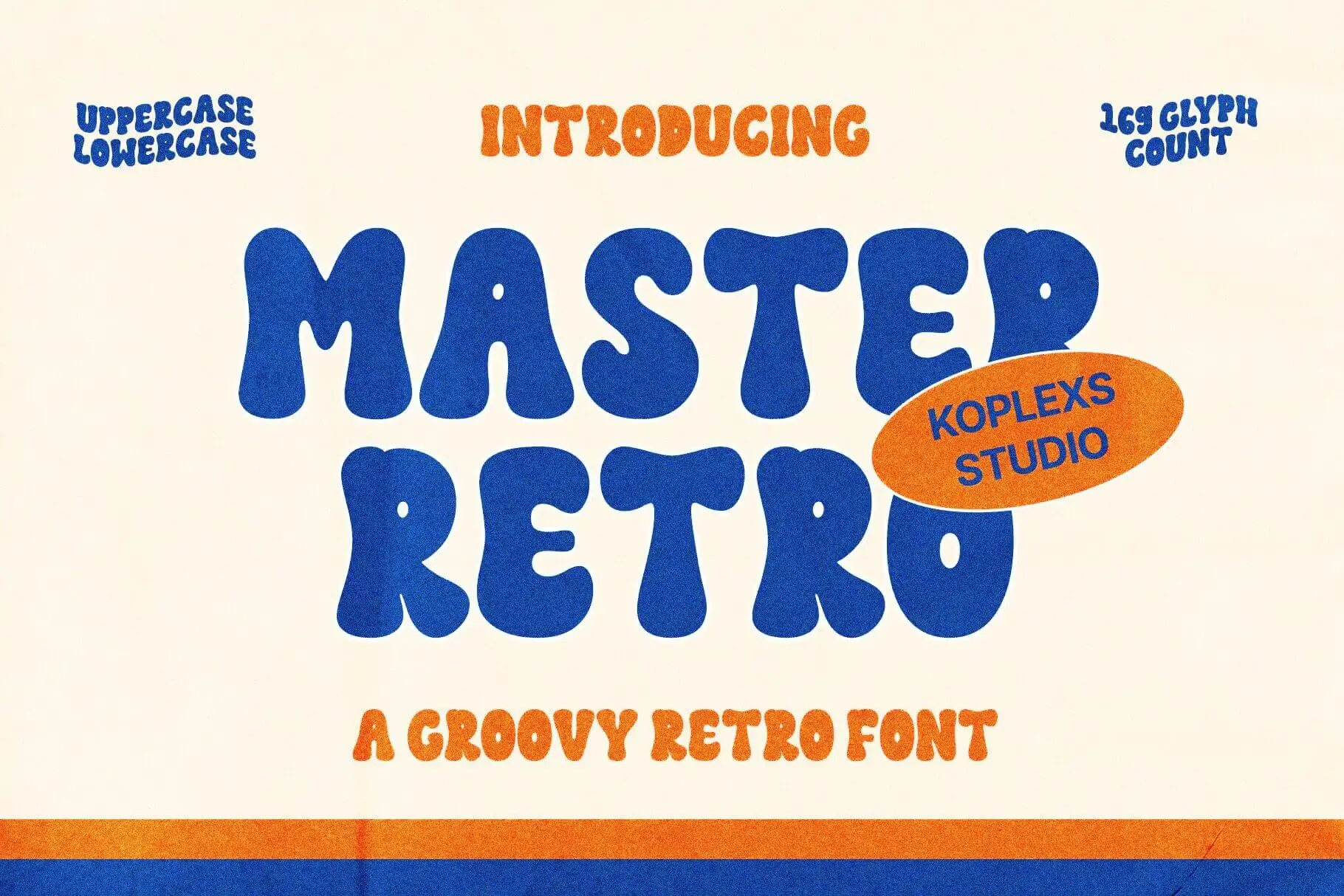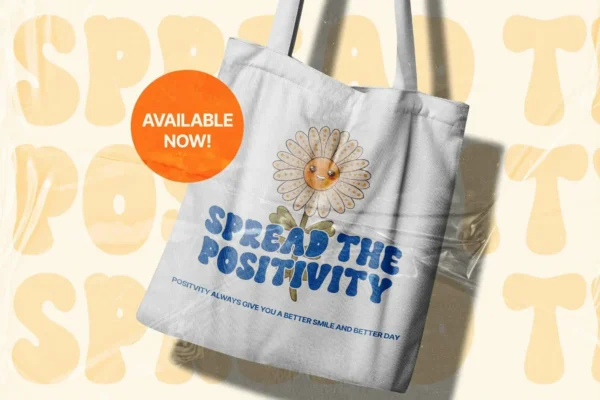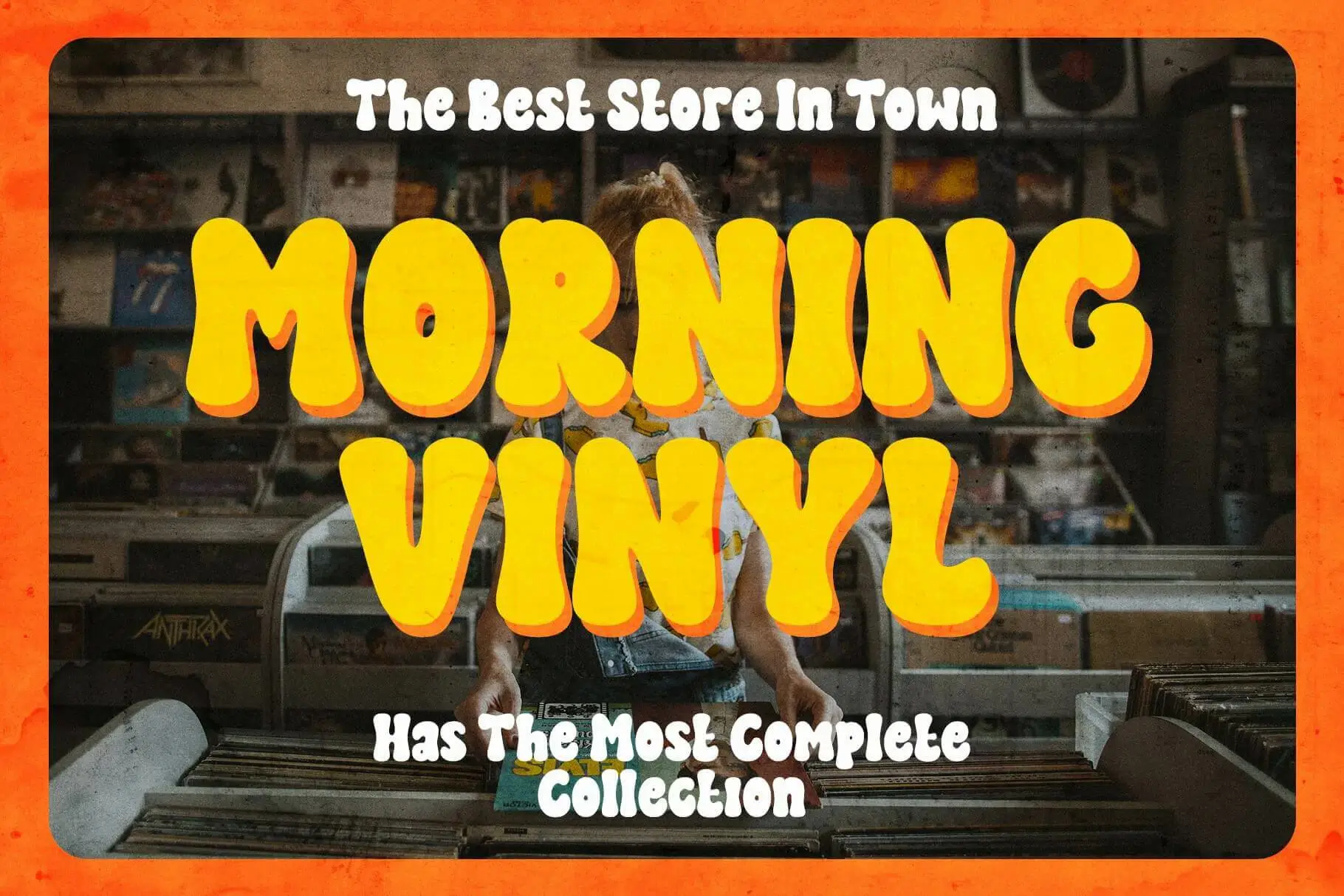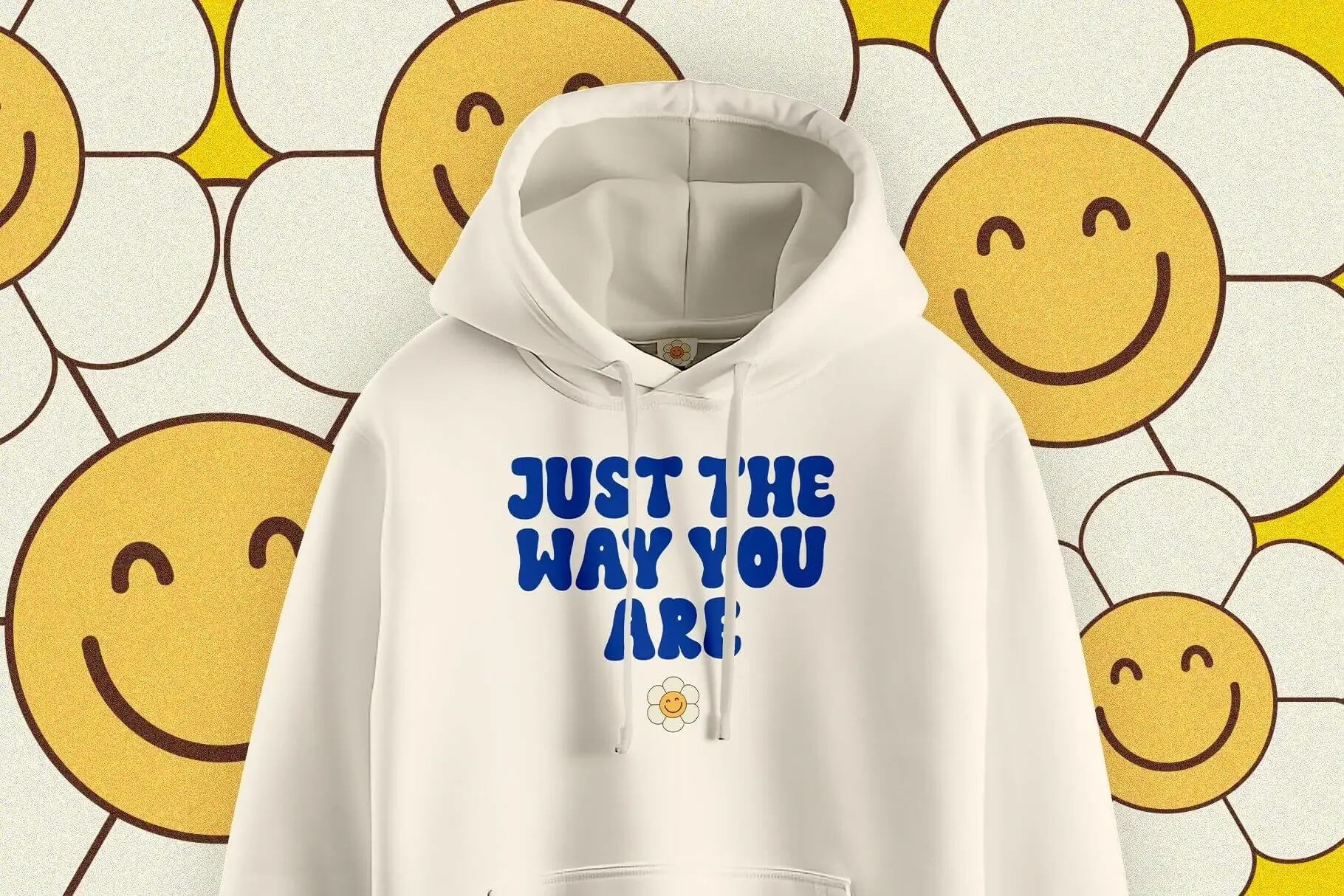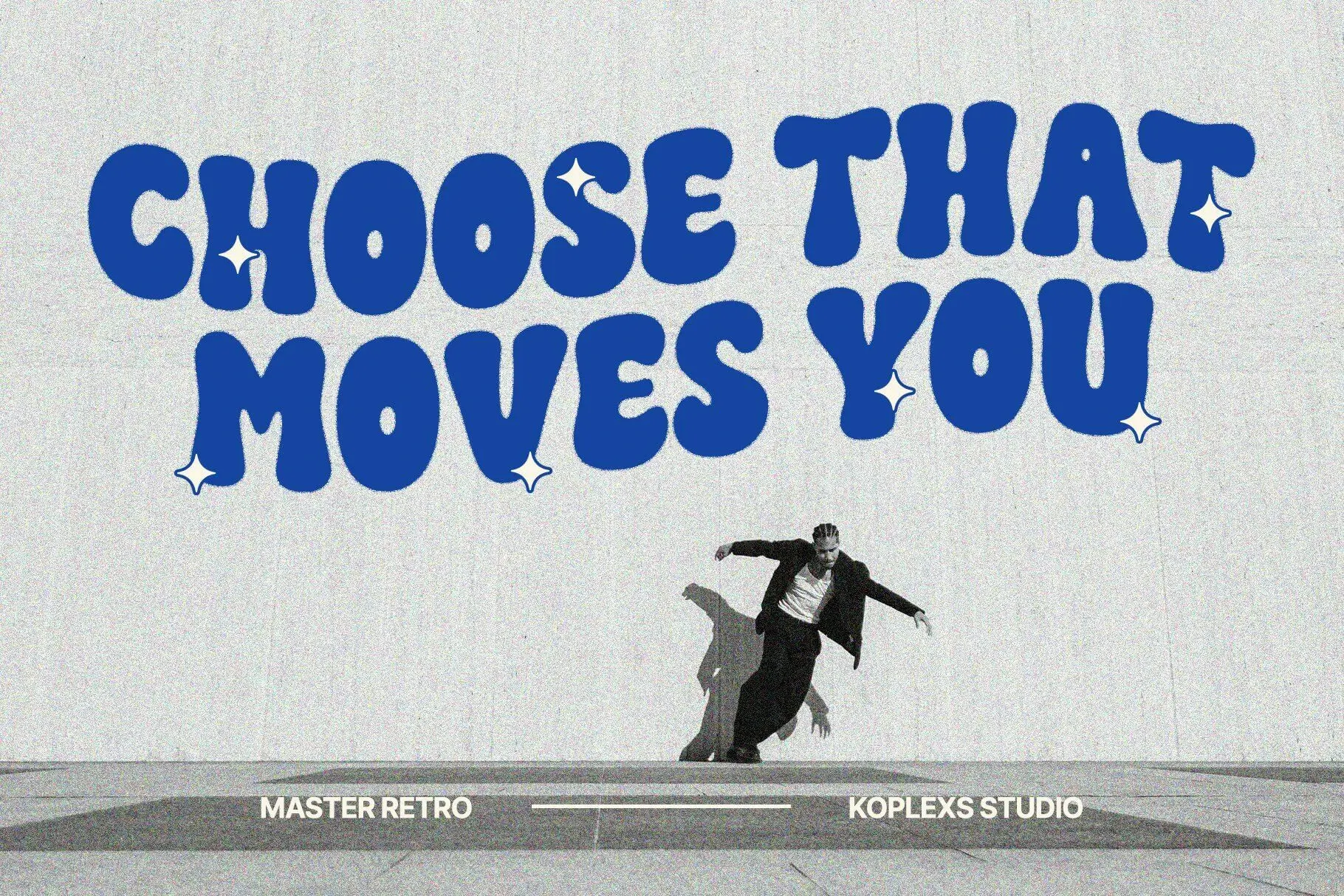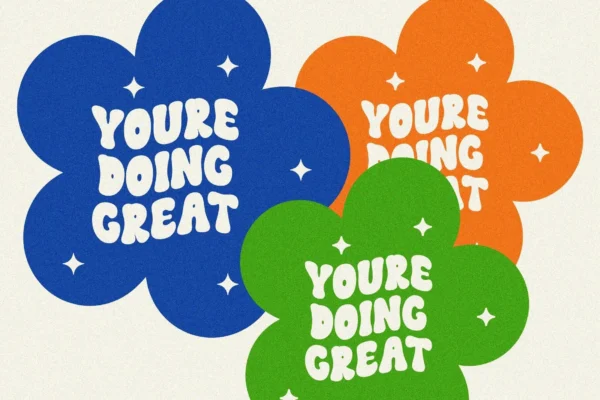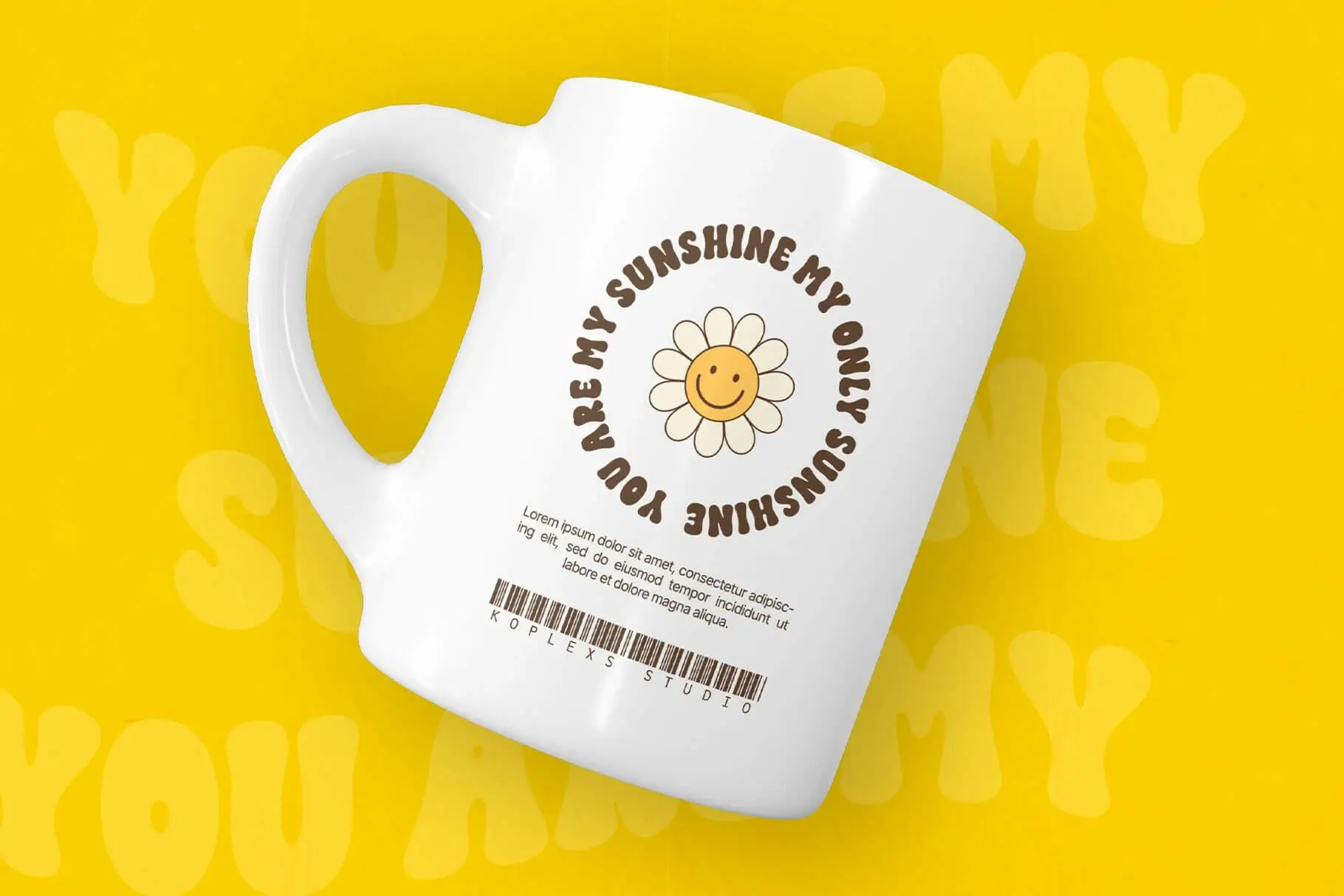
Master Retro Font
Master Retro Font – a bold, playful retro font with groovy, bubble-style letters that evoke vintage charm. Perfect for logos, apparel, and creative designs.
Koplexs Studio
Master Retro Font: A Groovy Retro Font with a Touch of Nostalgia
Introducing Master Retro Font, a vibrant and playful typeface that captures the essence of retro design with a modern twist. This font is perfect for those who want to evoke a sense of nostalgia while maintaining a fresh and contemporary aesthetic. Whether you’re designing posters, creating logos, or crafting social media content, Master Retro Font will add a unique charm to your projects.
Master Retro Font Key Features:
• Retro Fonts : Master Retro Font embodies the spirit of classic retro design, reminiscent of mid-20th-century typography. Its bold, rounded shapes and slightly uneven letterforms give it a handcrafted, authentic feel.
• Groovy Fonts : With its lively and energetic appearance, this font perfectly fits into groovy themes. It’s ideal for designs that aim to convey fun, positivity, and a carefree attitude.
• Bubble Fonts : The bubbly, rounded letters of Master Retro Font make it stand out as a bubble font. This style is particularly effective for capturing attention and adding a whimsical touch to your designs.
Master Retro Font Design Elements:
• Bold and Chunky Letters : The font features thick, robust strokes that give it a strong, impactful presence. This makes it highly readable even at smaller sizes.
• Playful Curves : The rounded edges and smooth curves of each character contribute to its friendly and approachable personality.
• Versatile Styles : Master Retro Font includes both uppercase and lowercase options, providing flexibility for various design needs. The inclusion of 169 glyphs ensures comprehensive coverage for all your typographic requirements.
Master Retro Font Applications:
• Branding and Logos : Use Master Retro Font to create memorable logos that resonate with audiences who appreciate vintage aesthetics. Its bold and distinctive look makes it perfect for brands aiming to stand out.
• Print Materials : From flyers and brochures to posters and packaging, this font adds a nostalgic charm to print designs. Its readability and visual appeal ensure that your message is both seen and understood.
• Digital Media : Ideal for social media graphics, website headers, and digital advertisements, Master Retro Font brings a retro vibe to online content. Its playful nature makes it suitable for platforms where engagement and creativity are key.
• Fashion and Merchandise : As shown in the tote bag and hoodie examples, Master Retro Font looks fantastic on apparel and accessories. Its bold letters and cheerful style make it perfect for t-shirts, hoodies, and other fashion items.
Master Retro Font Visual Examples:
• Tote Bag Design : The phrase “Spread the Positivity” on the tote bag demonstrates how Master Retro Font can be used to convey uplifting messages. The font’s bold blue letters paired with a cute flower graphic create a harmonious and inviting design.
• Hoodie Design : The hoodie featuring “Just the Way You Are” showcases the font’s versatility in apparel. The simple yet impactful text, combined with a smiling flower emblem, highlights the font’s ability to communicate warmth and positivity.
• Motivational Graphics : The colorful balloons with phrases like “You’re Doing Great” and “You’re Awesome” illustrate how Master Retro Font can be used to create motivational and inspiring visuals. The bright colors and playful design elements enhance the overall positive message.
Why Choose Master Retro Font?
• Uniqueness : Master Retro Font offers a blend of retro and modern elements, making it a standout choice for designers looking to create something different.
• Flexibility : Whether you need a bold statement or a subtle accent, this font can adapt to various design contexts.
• Emotional Appeal : The font’s playful and nostalgic qualities evoke feelings of joy, comfort, and familiarity, making it an excellent choice for designs aimed at connecting with audiences on an emotional level.
Conclusion:
Master Retro Font is more than just a typeface; it’s a tool for bringing life and personality to your designs. Whether you’re working on a personal project or a professional campaign, this groovy retro font will help you achieve a look that is both timeless and trendy. Available now, Master Retro Font is ready to elevate your creative endeavors with its unique charm and versatility. Embrace the past while staying ahead of the curve with Master Retro Font!